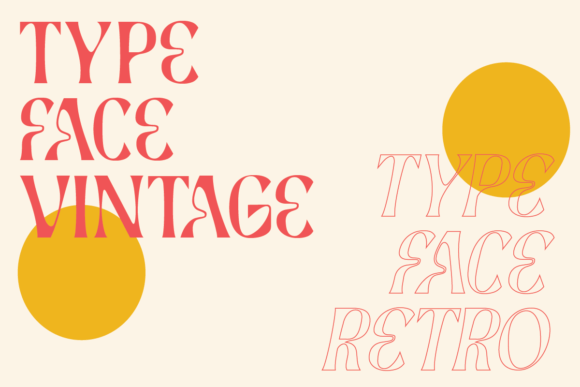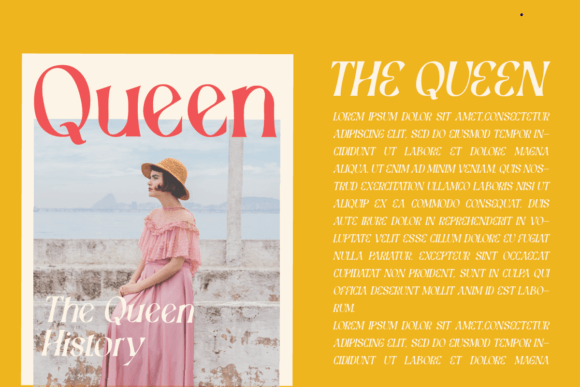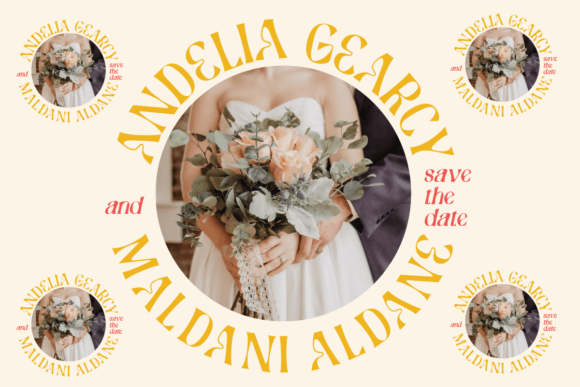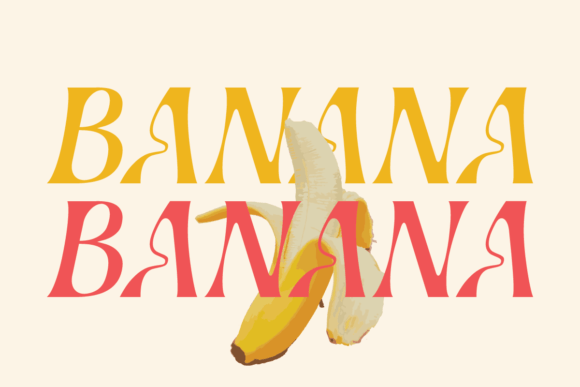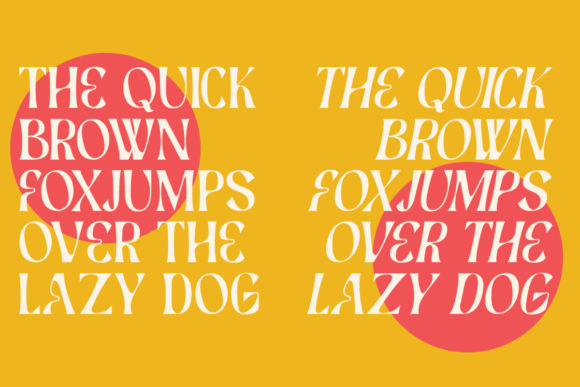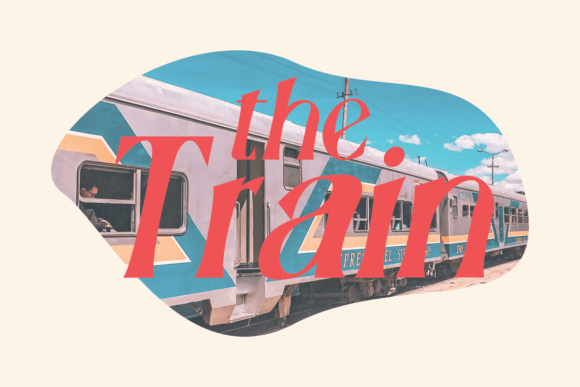
Bernat Burnoe Font: Elevate Your Designs with a Touch of Vintage Elegance
In the realm of typography, fonts play a pivotal role in defining the aesthetic and tone of any design project. Among the myriad of fonts available, Bernat Burnoe Font stands out for its unique blend of modernity and vintage charm. This versatile display font is engineered to make a statement, whether you’re working on editorial projects, crafting a logo, designing clothing branding, creating product packaging, or simply looking to add a stylish text overlay to a background image.
The Essence of Bernat Burnoe Font
Bernat Burnoe Font is characterized by its distinctive vintage feel, which is skillfully merged with contemporary design elements. This fusion results in a font that is not only visually appealing but also highly adaptable across various design contexts. The font’s design ensures that it remains legible and impactful, whether it’s used in large headlines or smaller body text.
One of the key advantages of Bernat Burnoe Font is its versatility. This attribute makes it an invaluable asset for designers who work on a wide range of projects. Here are some of the areas where Bernat Burnoe Font truly excels:
- Editorial Projects: For magazines, newspapers, and digital publications, Bernat Burnoe Font can be used to create captivating headlines and titles that draw readers in.
- Logo Design: The font’s unique character makes it an excellent choice for logos, providing a distinctive identity that can set a brand apart from its competitors.
- Clothing Branding: When it comes to branding clothing lines, Bernat Burnoe Font offers a stylish and modern look that can appeal to a wide audience.
- Product Packaging: Enhance your product packaging with elegant typography that not only communicates the brand’s message but also adds a touch of sophistication.
- Magazine Headers: Use Bernat Burnoe Font to create eye-catching headers that set the tone for the rest of the content.
- Text Overlays: For digital and print materials, adding a stylish text overlay to background images can elevate the visual appeal, and Bernat Burnoe Font does this with elegance.
Why Choose Bernat Burnoe Font?
Choosing a font for a design project can be a daunting task, given the vast number of options available. However, Bernat Burnoe Font offers several compelling reasons why it should be at the top of your list:
- Aesthetic Appeal: Its vintage-modern aesthetic is unique and captivating, making any text stand out.
- Legibility: Despite its stylized appearance, Bernat Burnoe Font maintains high legibility, ensuring your message is conveyed clearly.
- Versatility: Its adaptability across various design projects and contexts makes it a valuable addition to any designer’s toolkit.
- Contemporary Design: Bernat Burnoe Font embodies the latest in typographic design, ensuring your projects look current and stylish.
Tips for Using Bernat Burnoe Font
To maximize the impact of Bernat Burnoe Font, consider the following tips:
- Experiment with Sizes: Given its versatility, don’t be afraid to experiment with both large and small sizes to see where it has the most impact.
- Pair with Complementary Fonts: For body text or secondary headings, pair Bernat Burnoe Font with simpler fonts to create visual hierarchy and contrast.
- Consider the Background: Ensure that the background image or color complements the font, making the text stand out while maintaining readability.
| Font Name | Bernat Burnoe Font |
| Author | Muksal Creative |
Bernat Burnoe Font is more than just a typeface; it’s a design statement. Its unique blend of vintage charm and modern design makes it an indispensable tool for designers looking to create visually stunning and effective projects. Whether you’re working on a high-end fashion brand, a lifestyle magazine, or any project that requires a touch of elegance and sophistication, Bernat Burnoe Font is sure to deliver. Embrace the versatility and aesthetic appeal of Bernat Burnoe Font and elevate your designs to new heights.